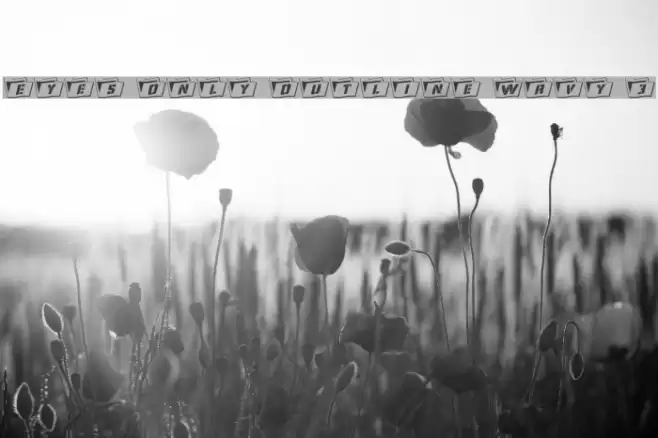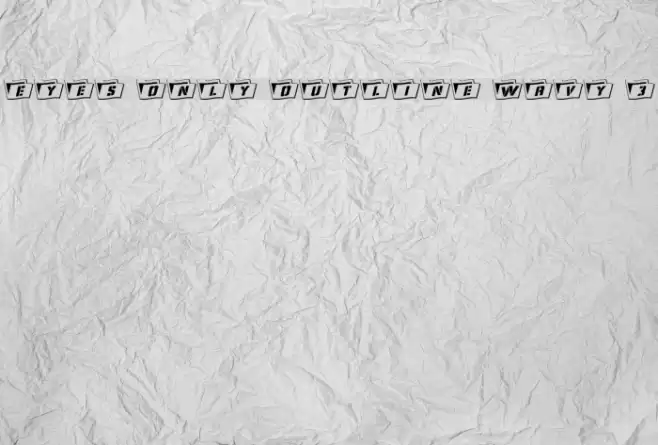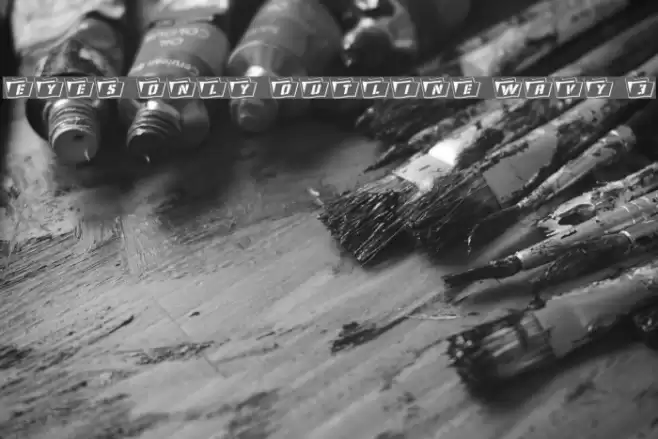
Eyes Only Outline Wavy 3 Font
Eyes Only Outline Wavy 3 Description
This font features a unique, wavy outline style that gives each character a dynamic and playful appearance. The letters are bold and angular, with a distinct shadow effect that adds depth and dimension. The uppercase and lowercase letters maintain a consistent style, while the numbers and special characters complement the overall design. The font's playful and eye-catching nature makes it suitable for creative and informal projects. Its distinct outline and shadow create a sense of movement, making it ideal for designs that require a bold statement.
A bold, wavy outline font with a dynamic shadow effect from Uncategorized fonts.
- Proposed Projects: Ideal for posters, logos, and creative branding projects.